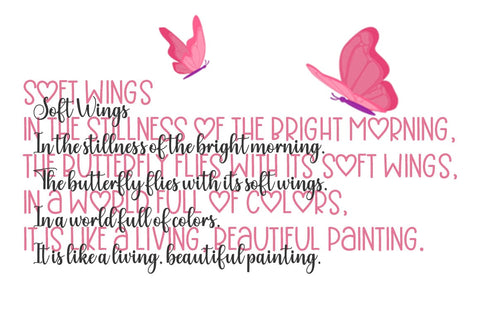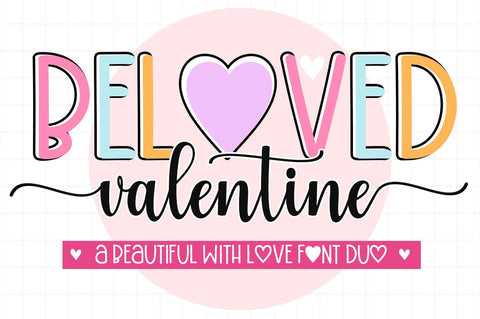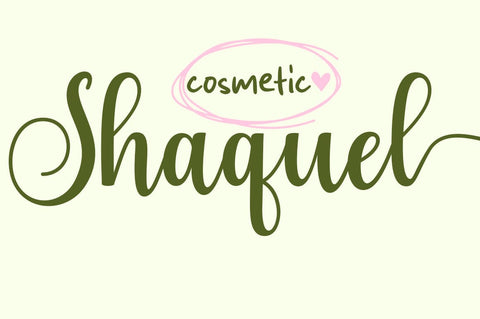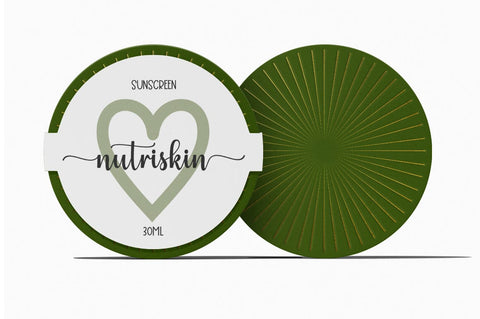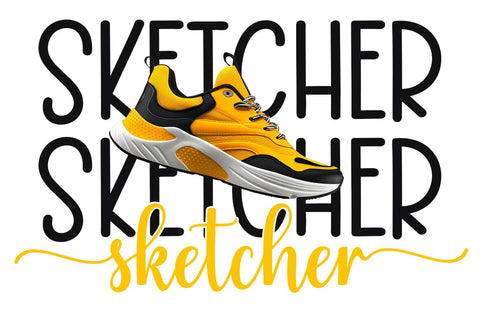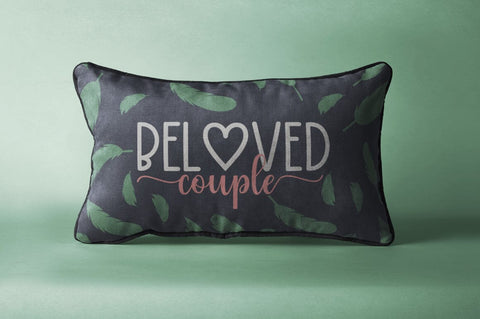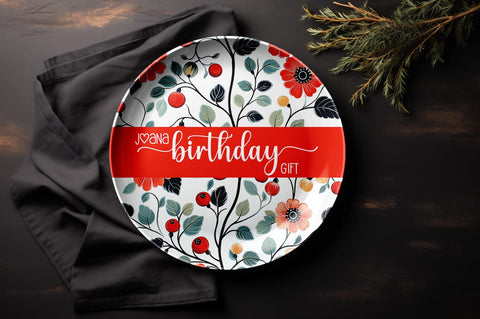
Beloved Valentine Font Duo
Beloved Valentine Font Duo is a new modern script font with an irregular base line. Trendy and feminine style. Beloved Valentine Script looks beautiful in wedding invitations, thank-you cards, quotes, greeting cards, logos, business cards, and more. Perfect for use in ink or watercolors. Including initial letters and terminals, alternatives and support for many languages.